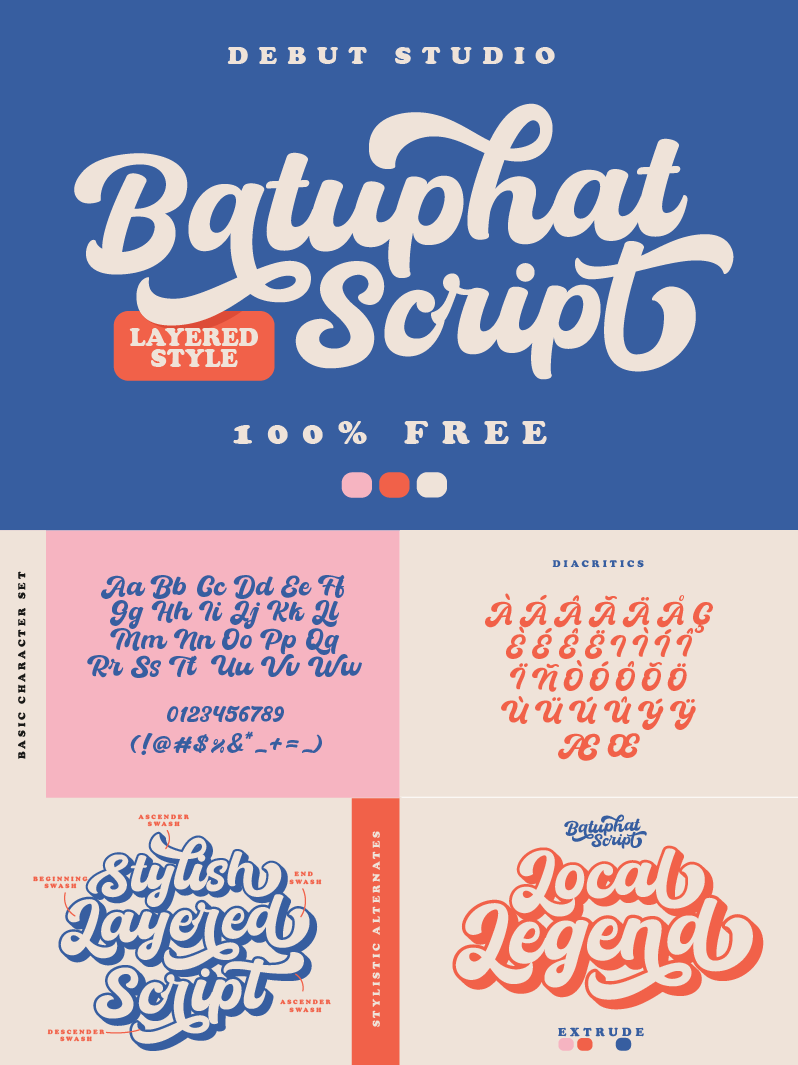
Preview and download Batuphat Script Font. Created by Ari Fadli in Script Old School styles with 100% Free license.
Batuphat Script is a lovely Bold Script with alternate glyph and layered style for free to use personal and commercial by Debut Studio Support us with visit my another font on this link https://creativemarket.com/debutstudio/u=debutstudio Any question, drop me email to debutstudio21@gmail.com Thanks |